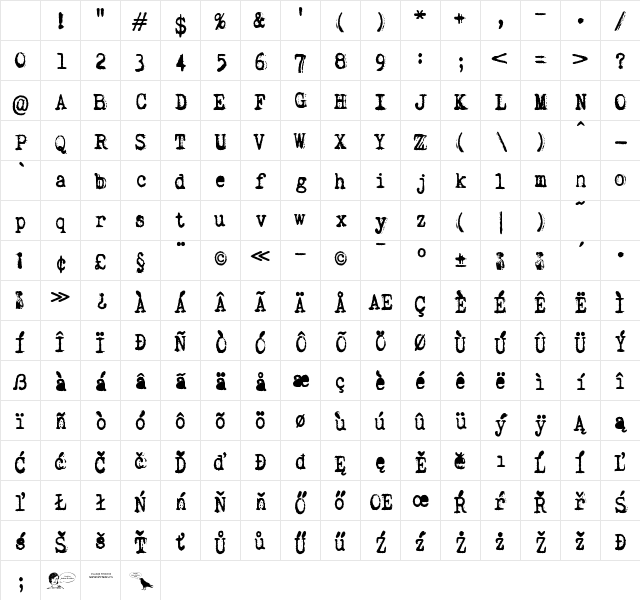
Rough Serif embraces imperfection - its rough, textured character adds raw authenticity to designs that want to feel lived-in and unconventional.
Pro Tip: Use Rough Serif at larger sizes where the texture and irregularity of each letterform can be clearly seen - it loses its character at small sizes.